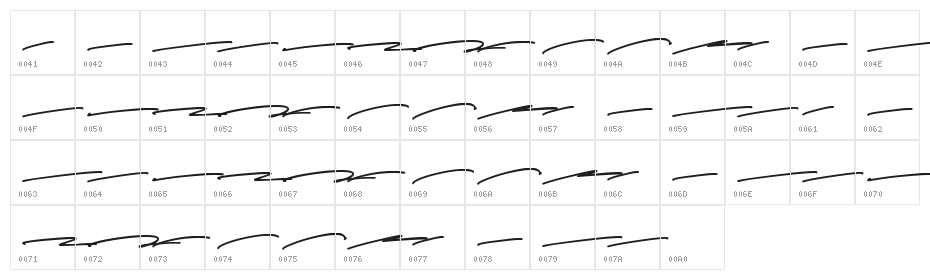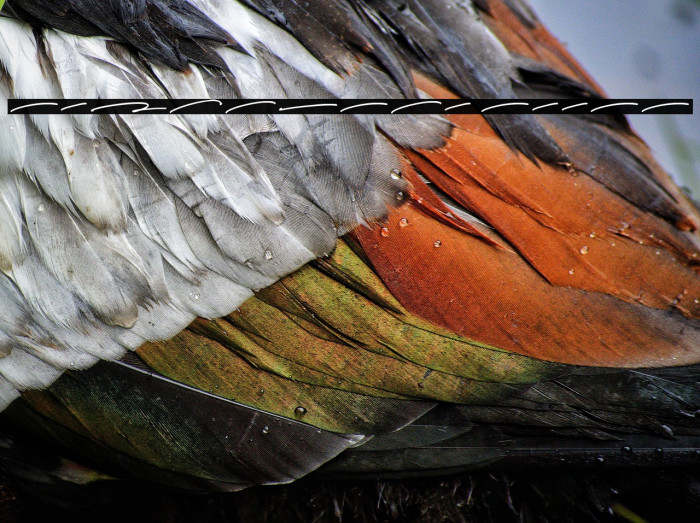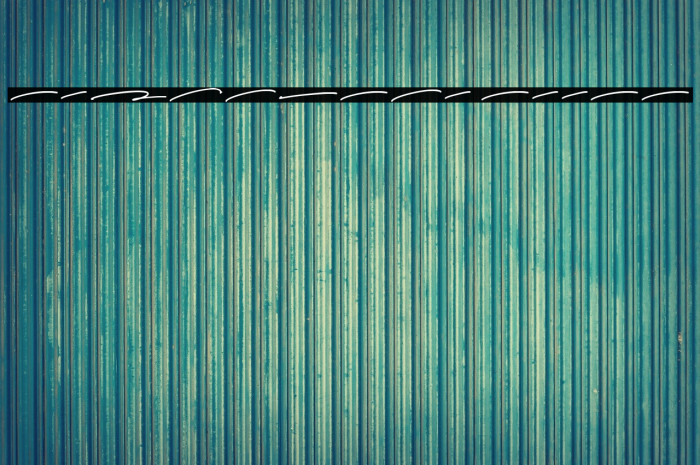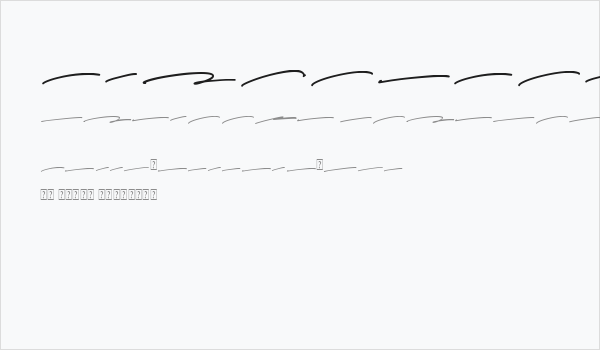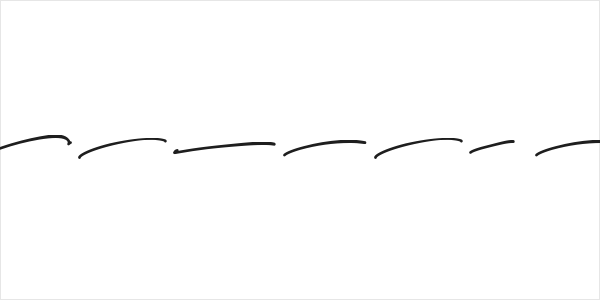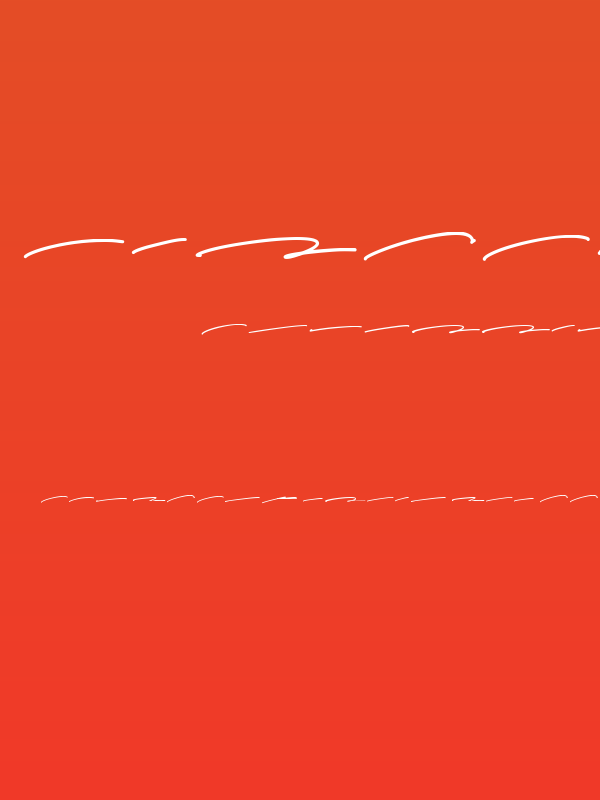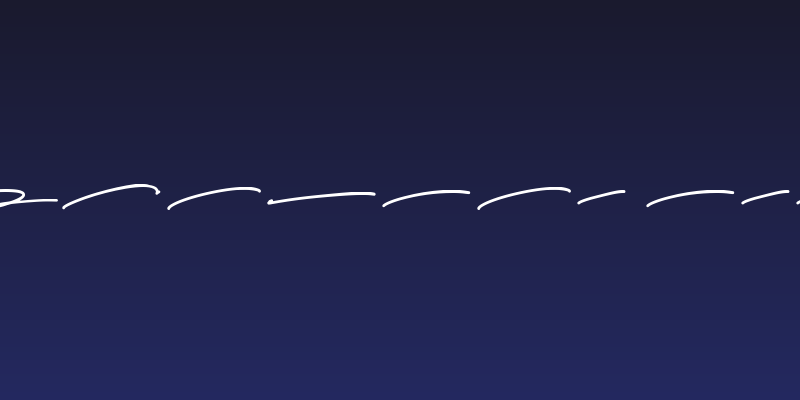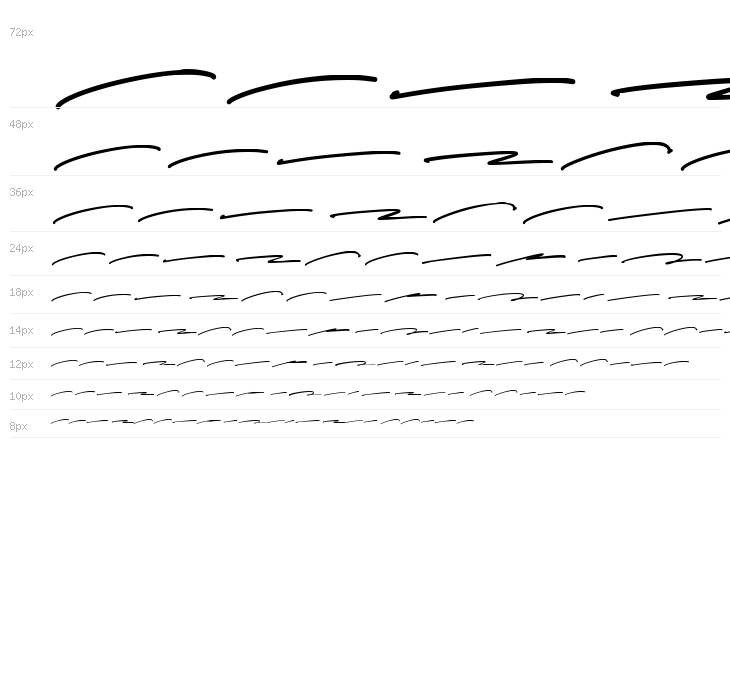
Haguiesta Swash Font
Haguiesta Swash Description
This font exhibits a flowing, cursive style with elegant swashes that extend from each character, creating a sense of movement and grace. The strokes are smooth and continuous, giving it a handwritten appearance that is both artistic and sophisticated. The letters are connected, enhancing the fluidity and making it ideal for decorative purposes. The overall design is delicate, with thin lines that add to its refined and airy feel.